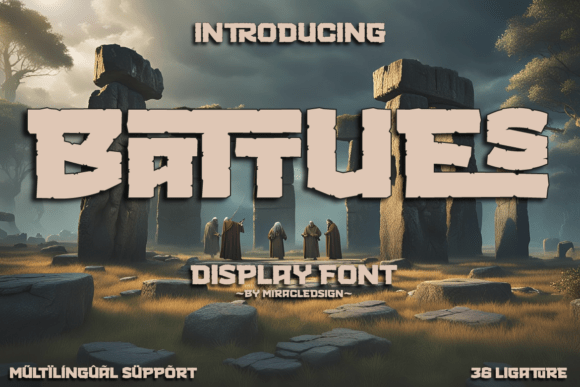
Battues Font: Unleash the Epic and Dramatic Feel in Your Designs
The “Battues” font is a bold, rough-textured display font that exudes an epic and dramatic feel, making it perfect for titles, posters, or fantasy and adventure-themed designs. Its unique characteristics, coupled with a mysterious background image, enhance the character of this font, allowing designers to bring each of their creations to life.
What Makes Battues Font Stand Out?
The Battues font boasts bold letters with slightly beveled edges, giving it a distinctive look that commands attention. The rough texture adds a layer of ruggedness, making it ideal for designs that require a strong, dramatic impact. Whether you’re working on a fantasy novel cover, a movie poster, or a game logo, this font is sure to make your project stand out.
Key Features of Battues Font
- Bold and Rough-Textured Design: The font’s bold design ensures that your text is always visible and attention-grabbing, while the rough texture adds a unique, organic feel.
- Slightly Beveled Edges: The slightly beveled edges give the font a refined look, preventing it from appearing too harsh or overpowering.
- Epic and Dramatic Feel: The overall design of the Battues font, combined with its bold and rough-textured appearance, gives it an epic and dramatic feel that’s perfect for a variety of design projects.
The Background Image: Enhancing the Character of Battues Font
The background image that accompanies the Battues font features megalithic stones and a mysterious atmosphere, further enhancing the character of this font. The image adds a sense of ancient mystery and power, making it perfect for designs that require a sense of history, mythology, or fantasy.
Using Battues Font in Your Designs
The Battues font is incredibly versatile and can be used in a variety of design projects, including:
- Titles and Headings: Use the Battues font to create bold, eye-catching titles and headings that demand attention.
- Posters and Flyers: The font’s dramatic feel makes it perfect for posters and flyers promoting movies, games, or events.
- Fantasy and Adventure-Themed Designs: The Battues font is ideal for designs that require a sense of fantasy, adventure, or mythology, such as book covers, game logos, or website headers.
Tips for Getting the Most Out of Battues Font
To get the most out of the Battues font, consider the following tips:
- Experiment with Different Sizes: The Battues font looks great in a variety of sizes, from small headings to large titles. Experiment with different sizes to find the one that works best for your design.
- Combine with Other Fonts: The Battues font pairs well with a variety of other fonts. Try combining it with a serif font for a classic look or a sans-serif font for a modern feel.
The Battues font is a powerful tool for designers looking to add an epic and dramatic feel to their creations. Its bold, rough-textured design, combined with its slightly beveled edges and PUA encoding, make it perfect for a variety of design projects. Whether you’re working on a fantasy novel cover, a movie poster, or a game logo, the Battues font is sure to help you create a lasting impression.
Battues Font Features:
- Font Type: Display Font
- Font Style: Bold, Rough-Textured
Use Battues Font For:
- Titles and Headings: Perfect for creating bold, eye-catching titles and headings.
- Posters and Flyers: Great for posters and flyers promoting movies, games, or events.
- Fantasy and Adventure-Themed Designs: Ideal for designs that require a sense of fantasy, adventure, or mythology.